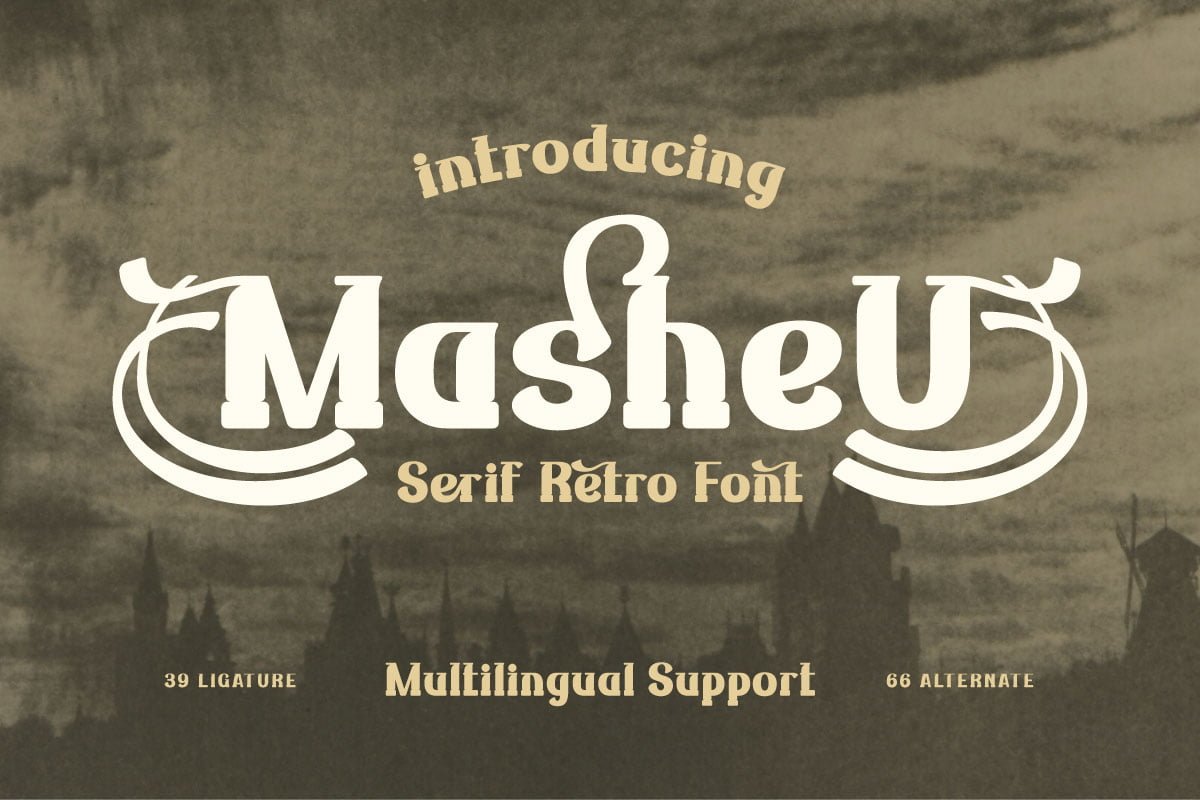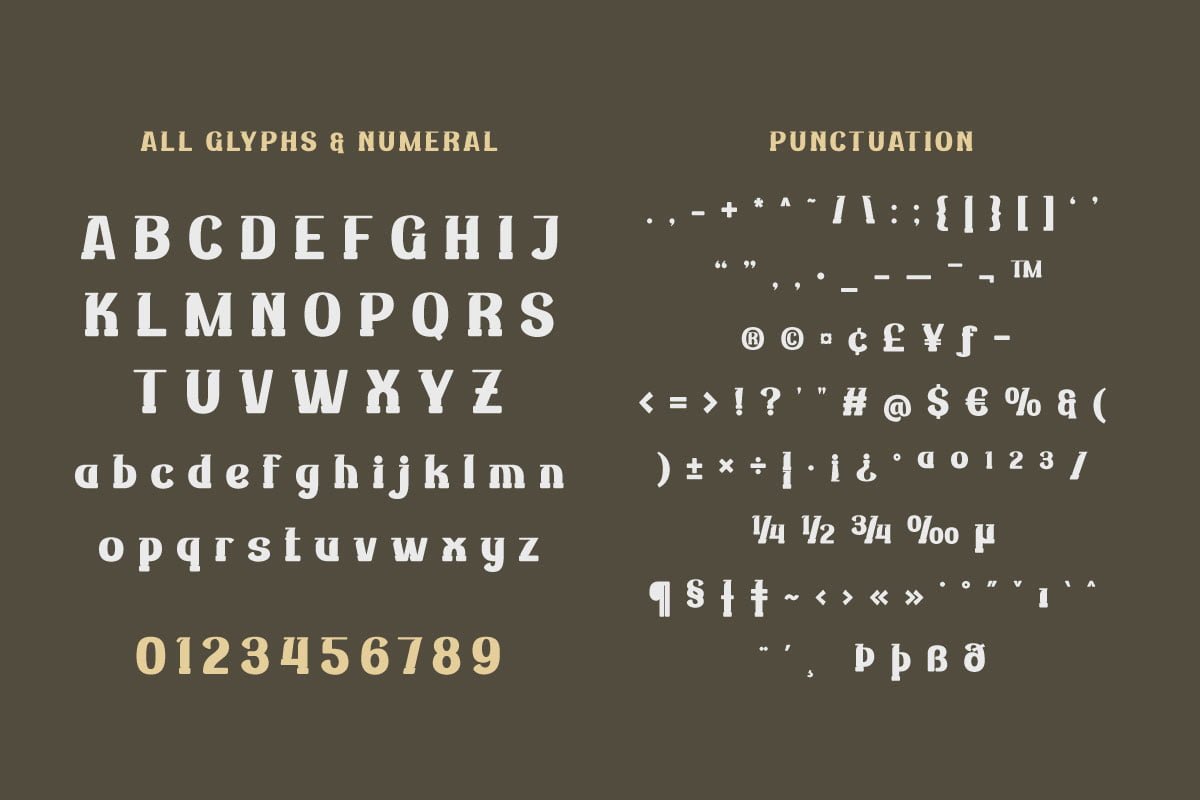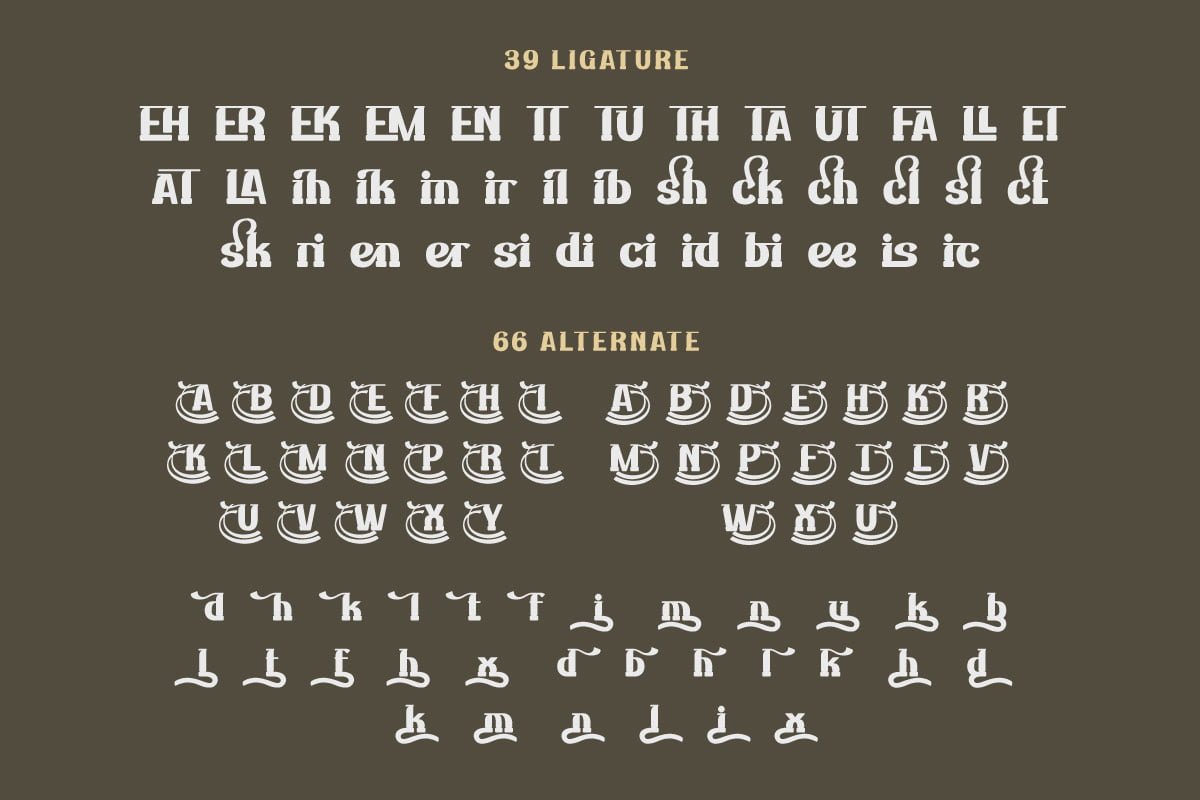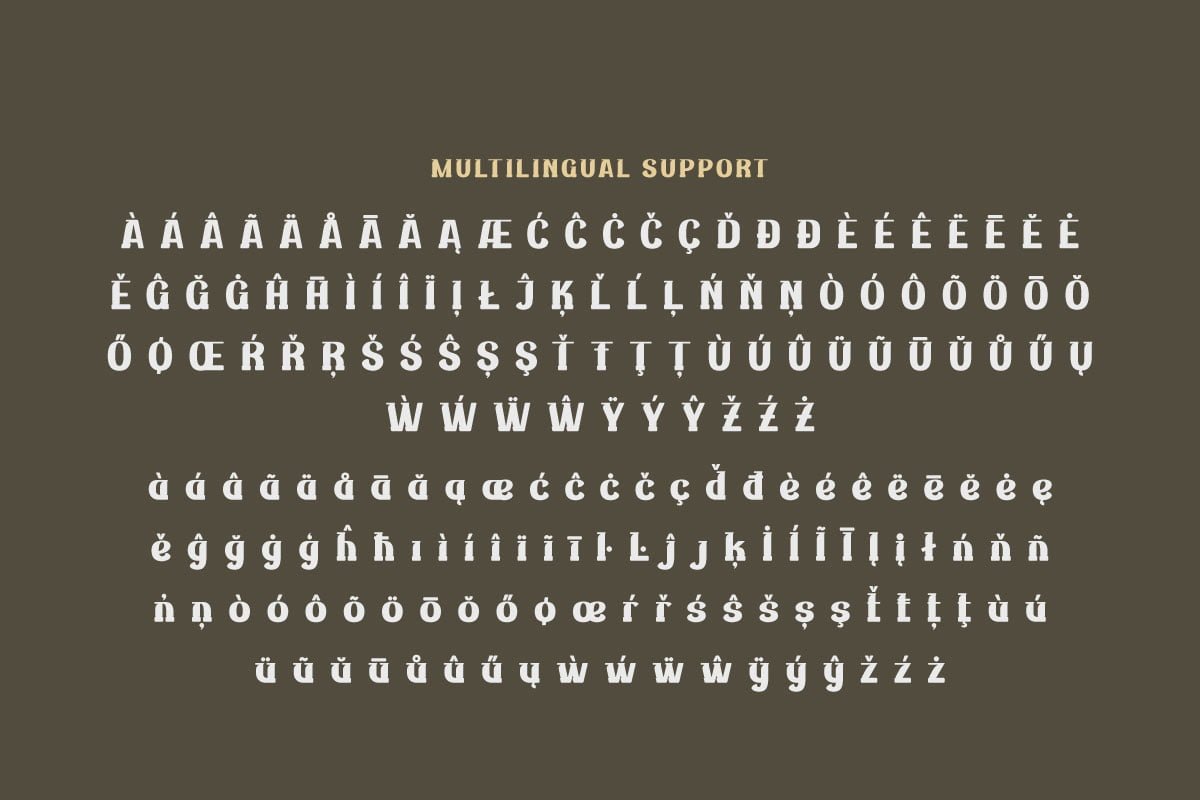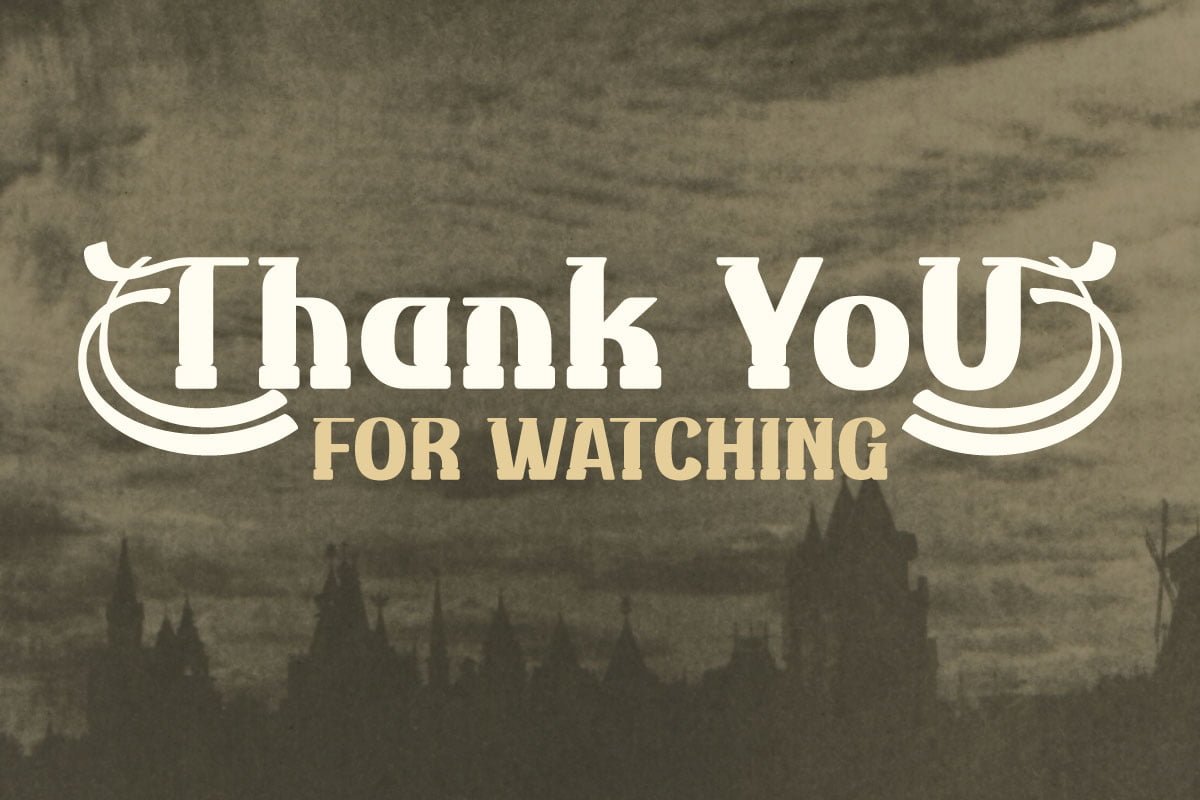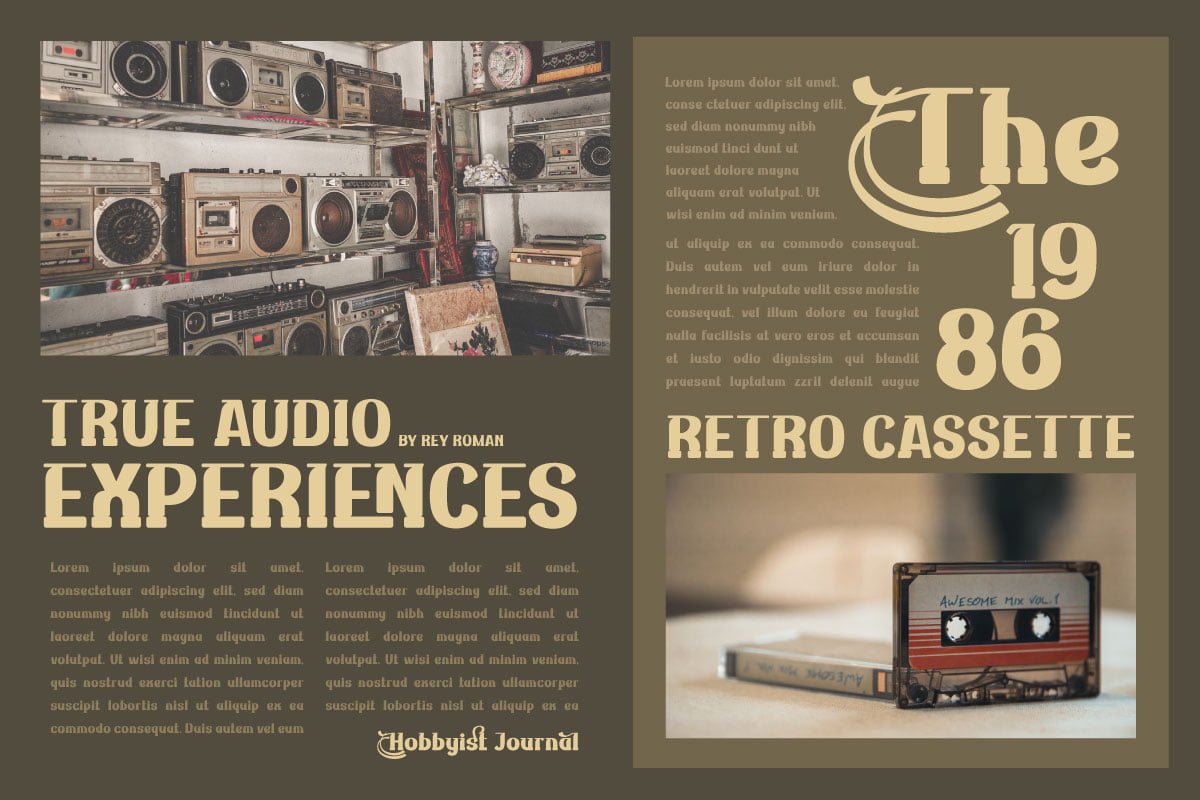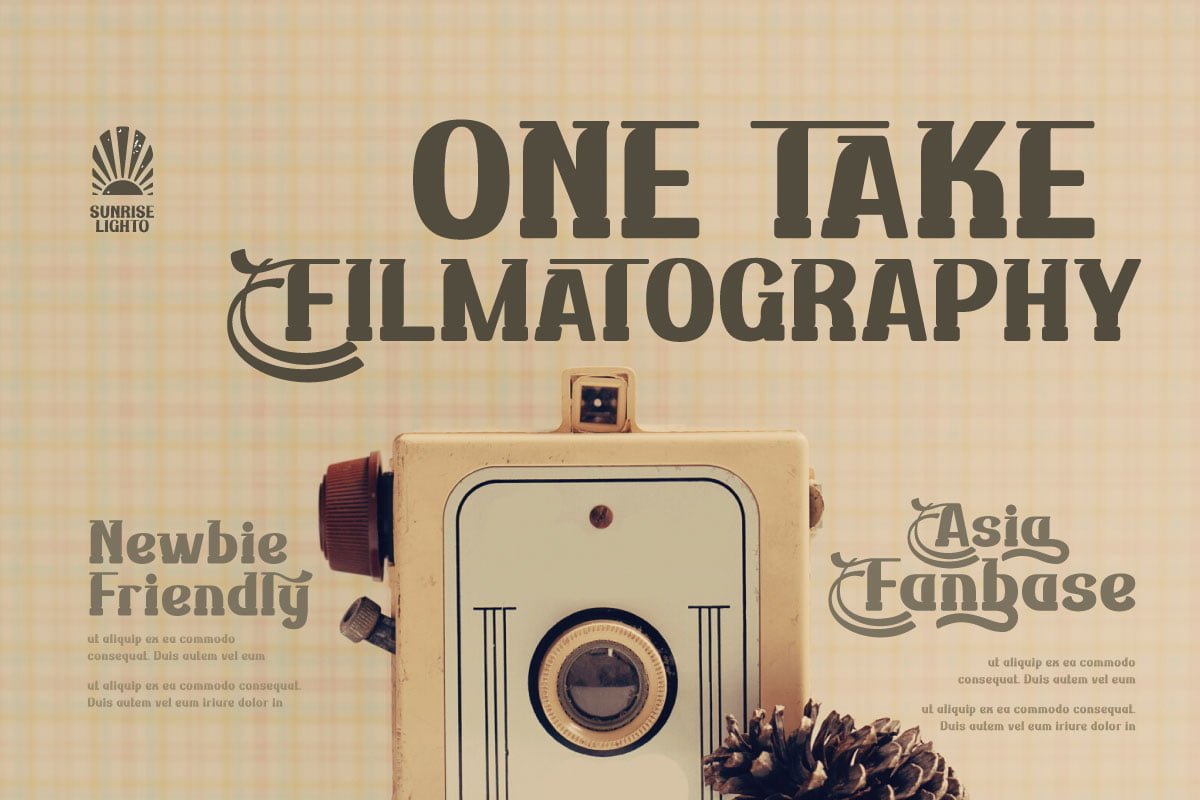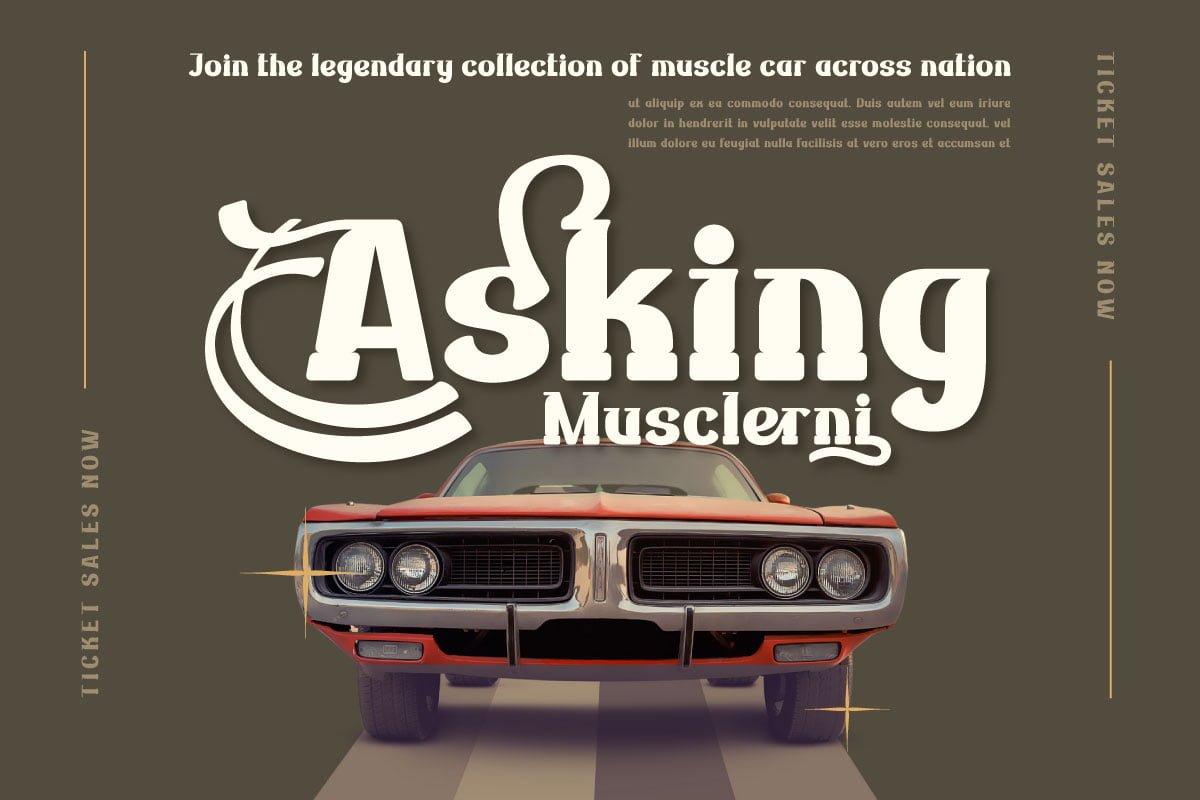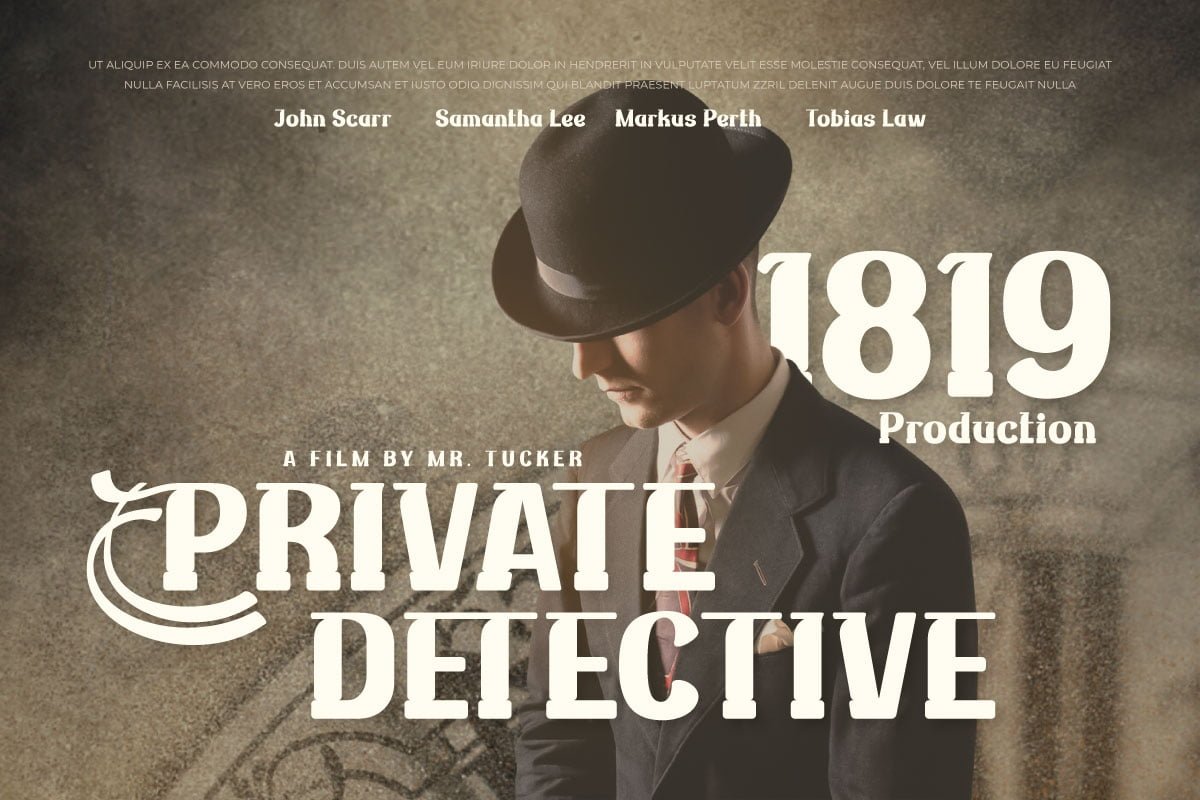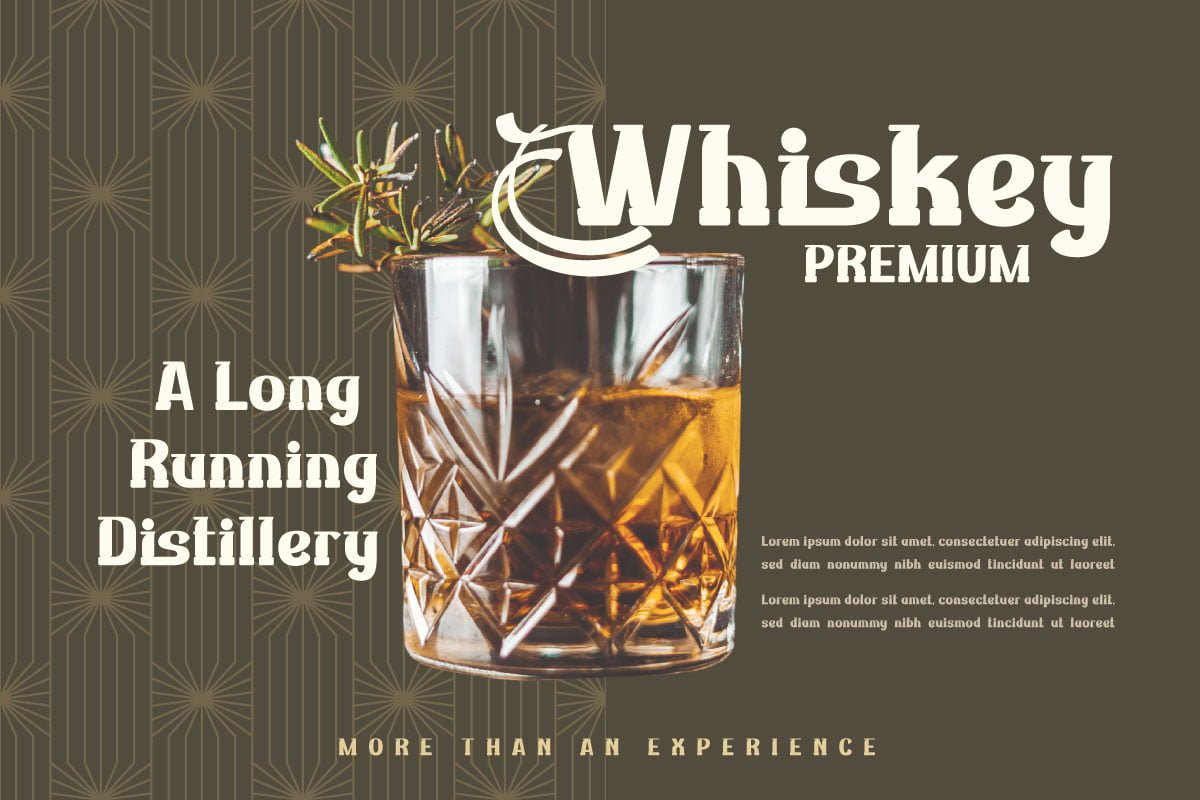
Masheu | Serif Classic Modernism
Masheu is a classic serif font that depicts elegance and perfection in every line and curve of the letters. With a distinct touch of classic modernism, this font is the perfect solution for creating designs that exude a timeless beauty. Each Masheu character is designed with captivating detail and subtlety. With well-proportioned proportions and elegant serif forms, this font strikes a harmonious balance between simplicity and elegance. The typography styles brought to you by Masheu will add a touch of luxury and professionalism to any of your design projects.
Not only has an attractive appearance but Masheu is also equipped with creative features. With the available ligatures and alternates, you can create unique and interesting style variations to suit your project needs. Also, multilingual support ensures that this font can be used in multiple languages easily.
Are you looking for a font that combines classic beauty and modern sophistication in one perfect unit? Masheu is the answer. With benefits that include a stunning classic serif style, creative features such as ligatures and alternates, and extensive multilingual support, this font will quickly grab the attention of your potential customers and deliver eye-catching designs in no time.